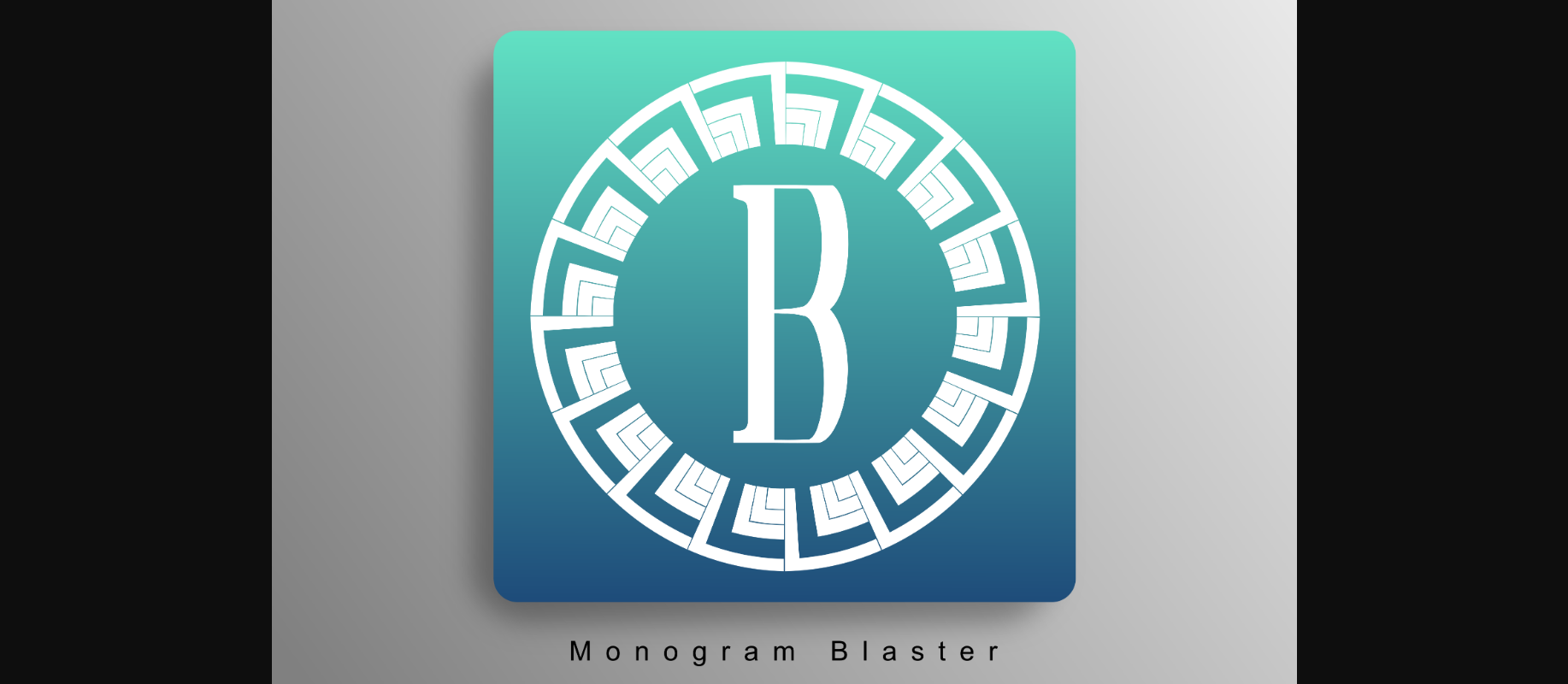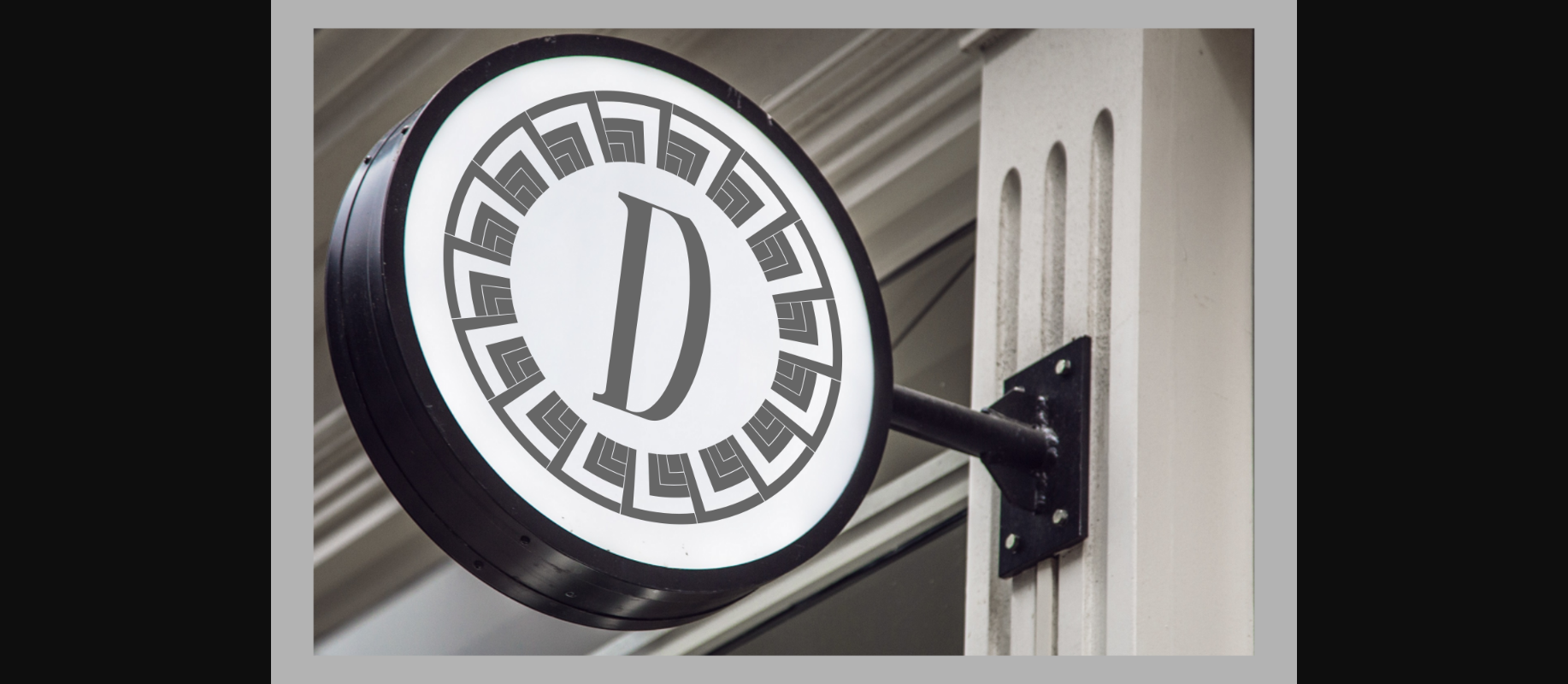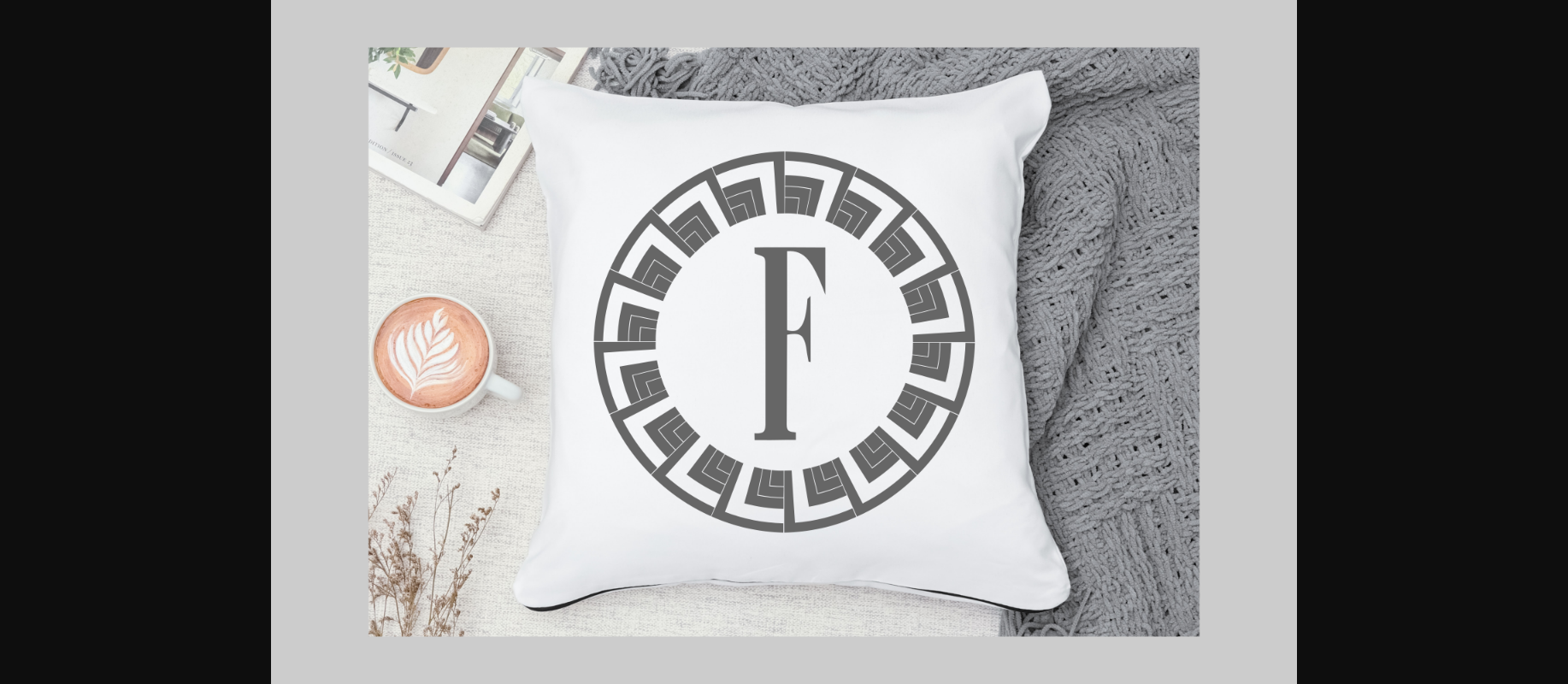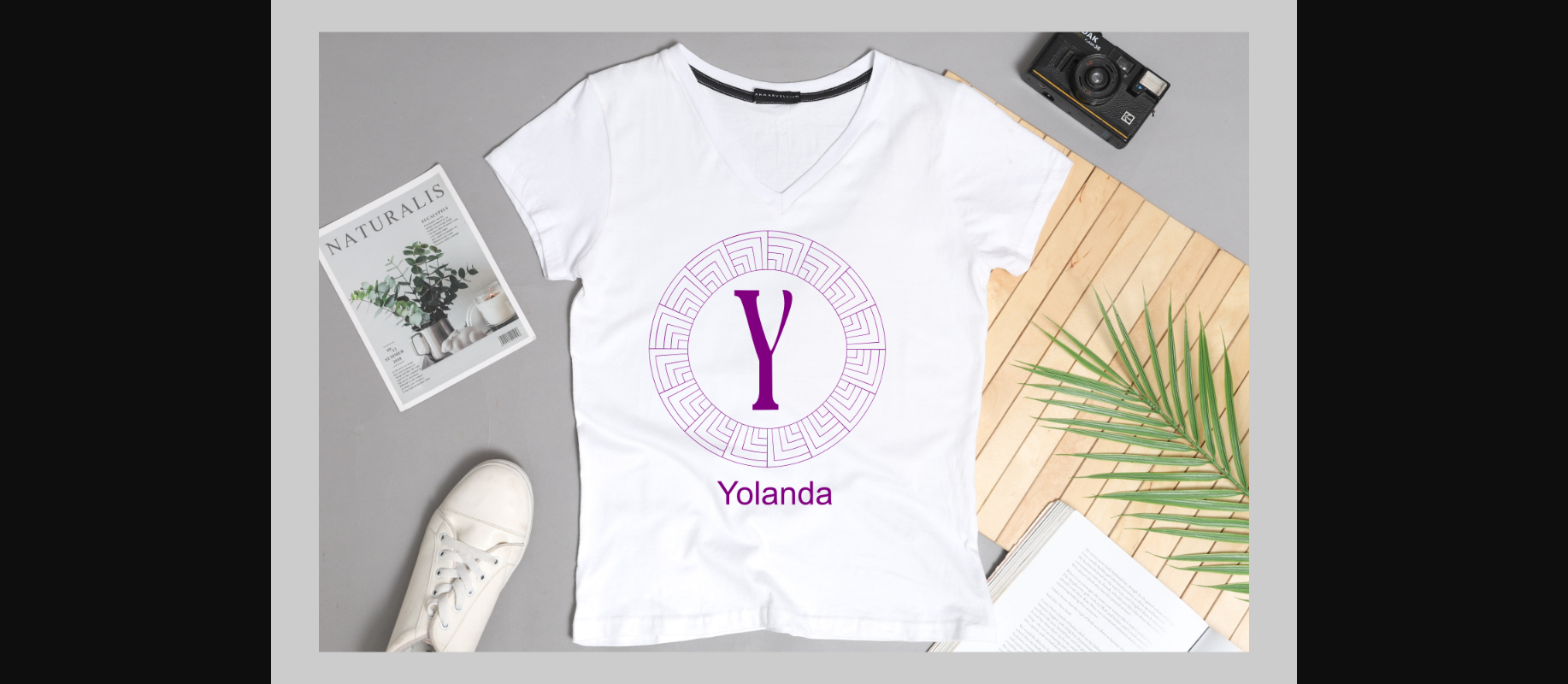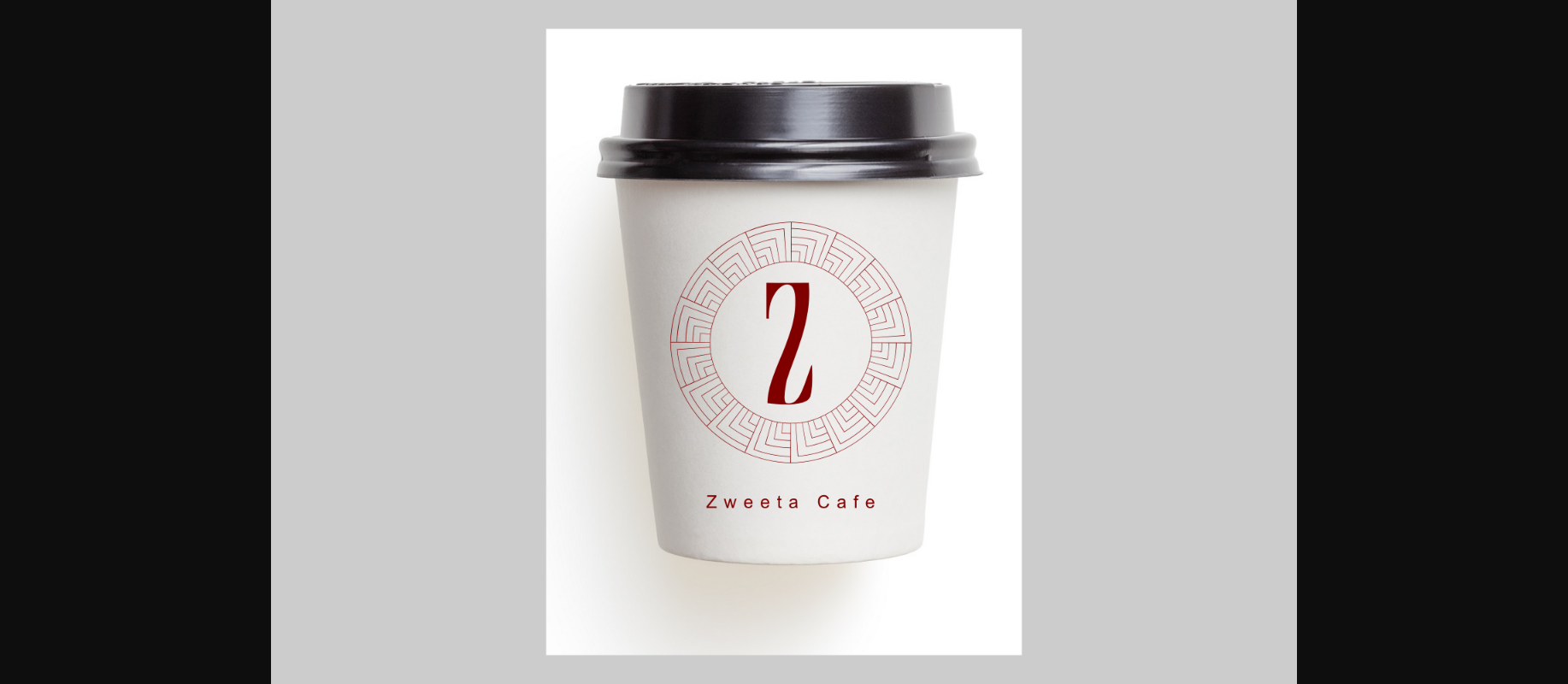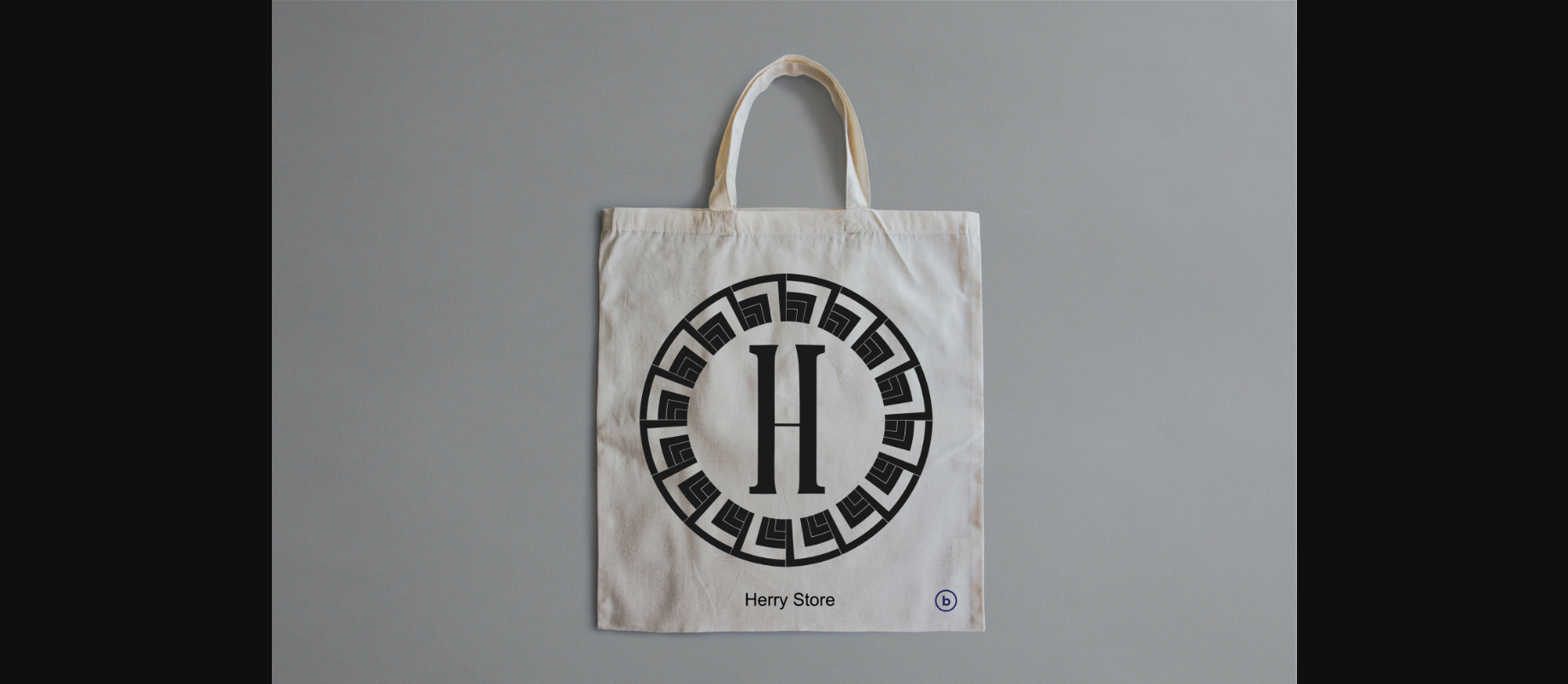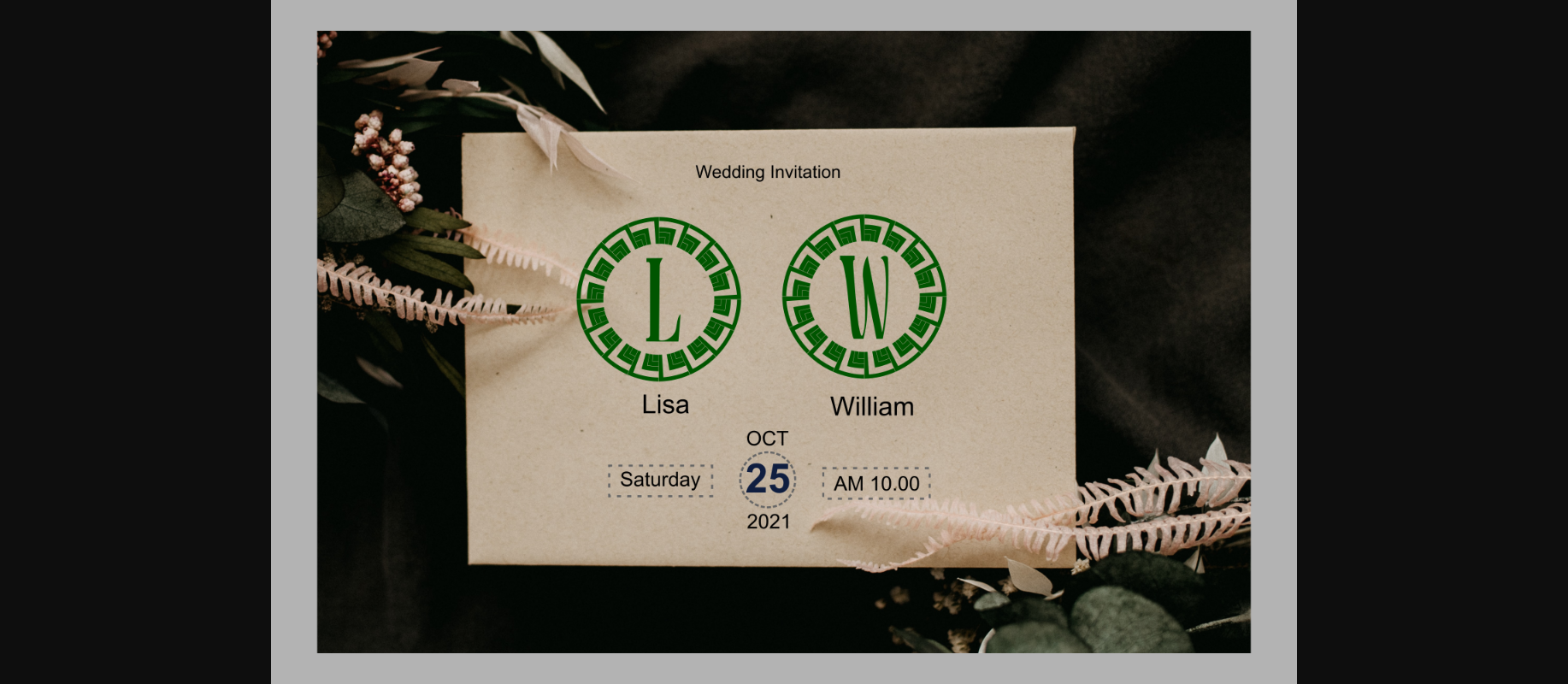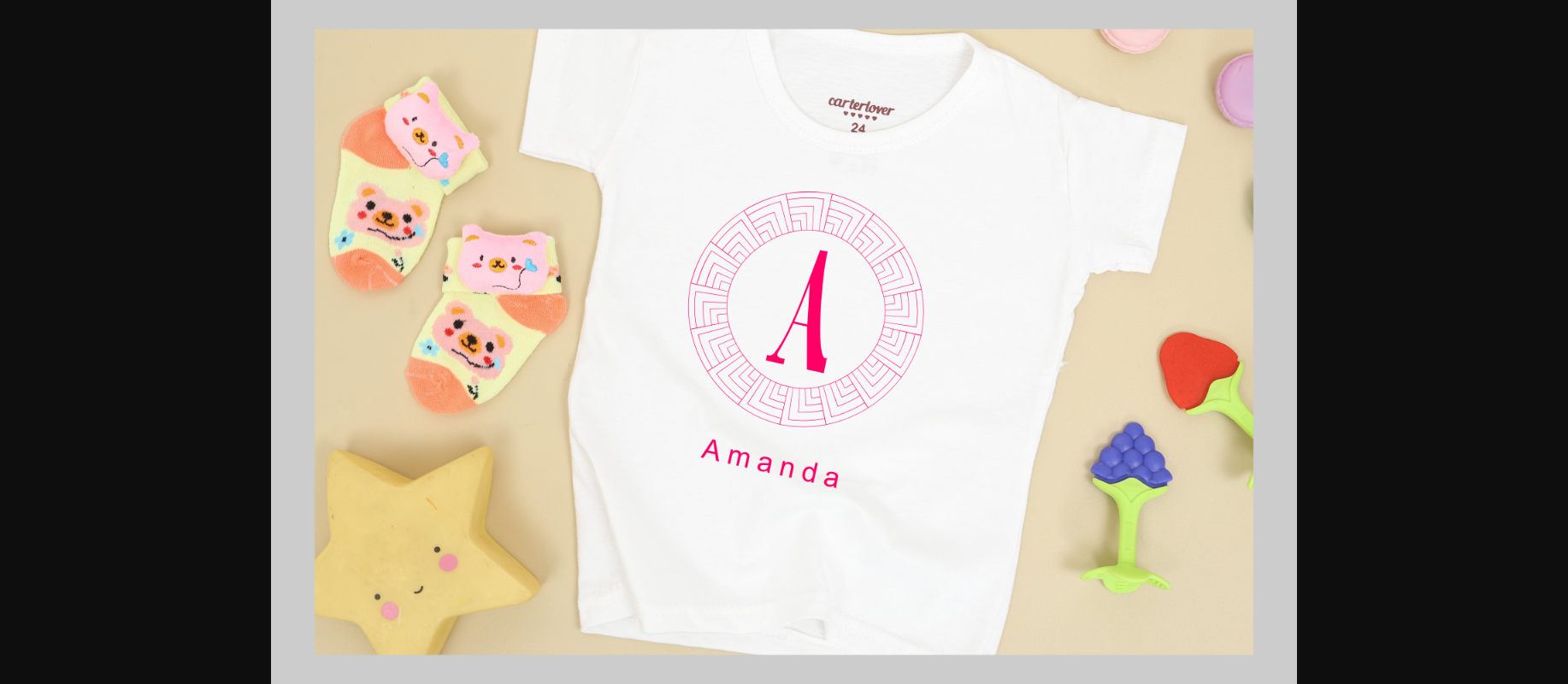
Monogram Blaster Font
About Monogram Blaster Font
Monogram Blaster is a highly detailed and beautiful decorative font. Add this lovely-looking font to each of your love letters, wedding invitations, or favorite design ideas, and you will be astounded by the outcome.